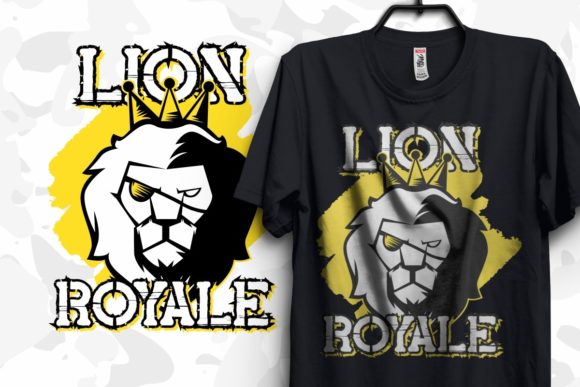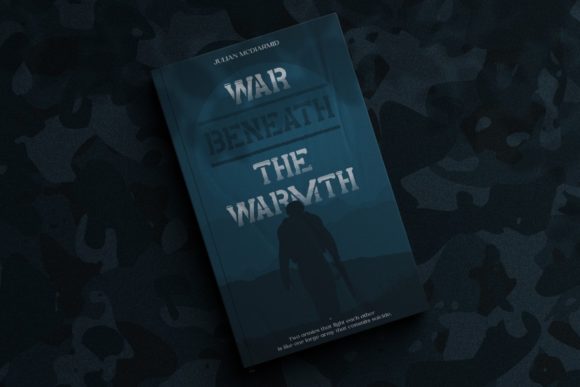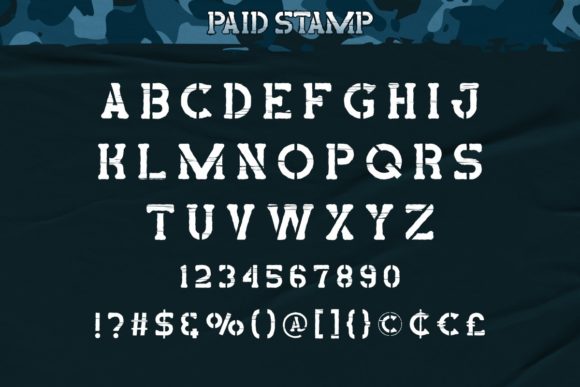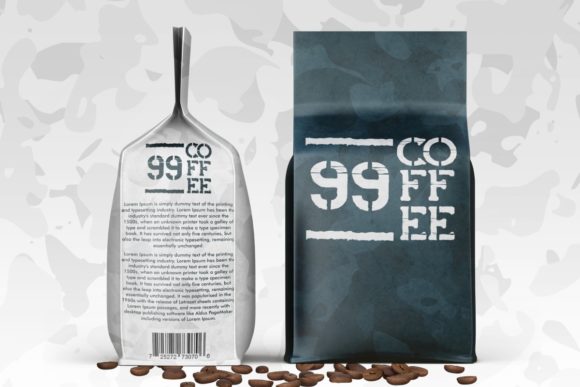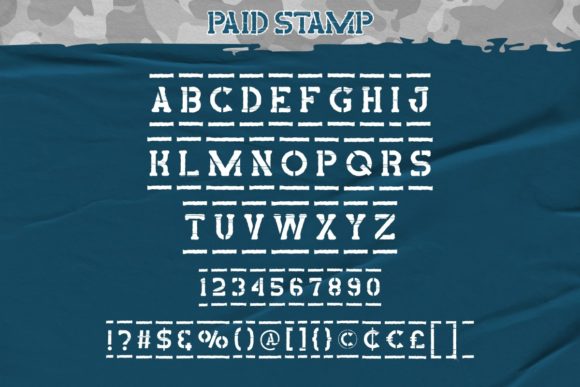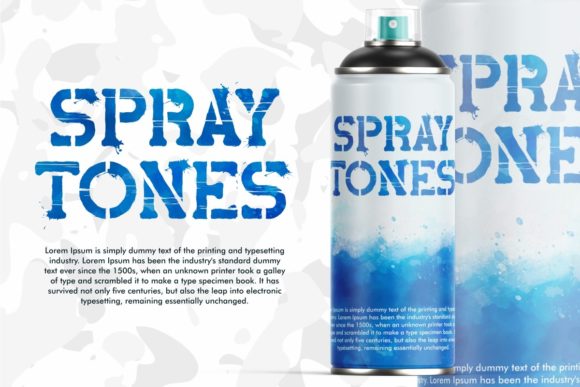
Introduction to Paid Stamp Font
Paid Stamp is an army-style serif and decorative duo font.
It has a unique style obtained by combining a stamped font with a stencil look It is great for games, lettering, logos, products packaging, shirt, signage, stamp, title, etc.
Key Features of Paid Stamp Font